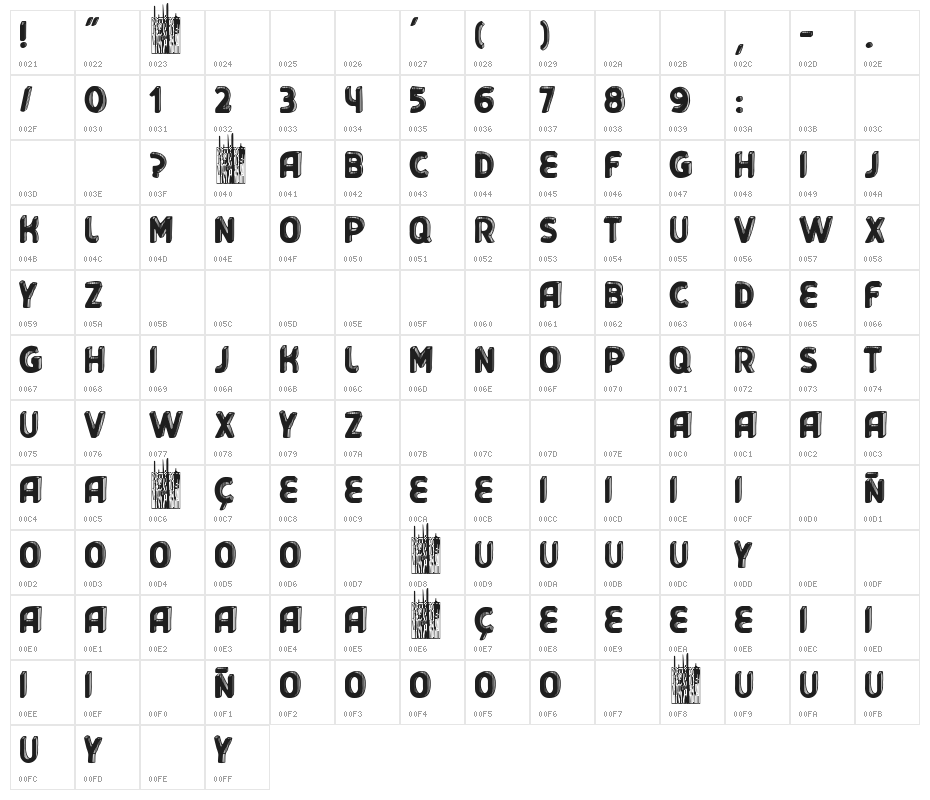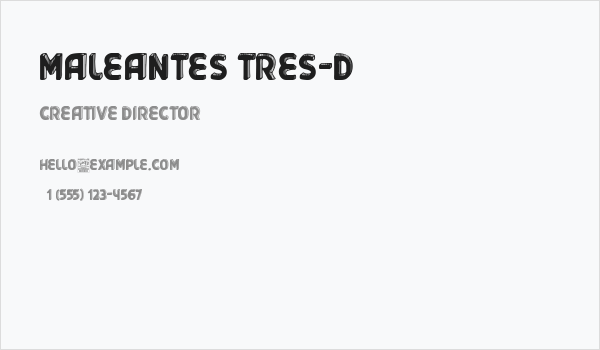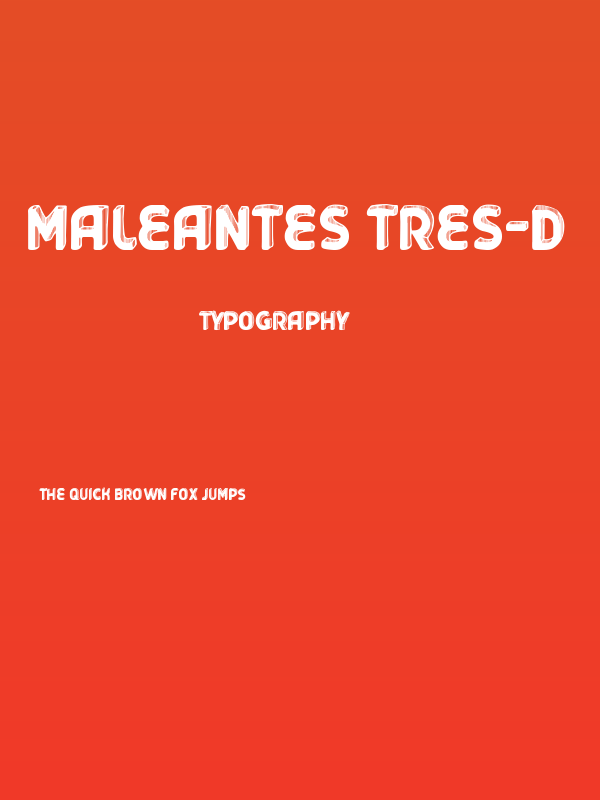
Maleantes Tres-d Font
Maleantes Tres-d Description
A bold, decorative display font with a three-dimensional, hand-drawn effect featuring thick strokes and diagonal shading lines, giving the characters a playful and dynamic appearance. The letterforms are rounded and geometric, with consistent proportions and a strong visual impact.
| Overall Style | Decorative, Playful, Modern |
| Proposed Projects | Posters, comic book titles, event flyers, childrenΓ’β¬β’s book covers, branding for playful or creative products. |